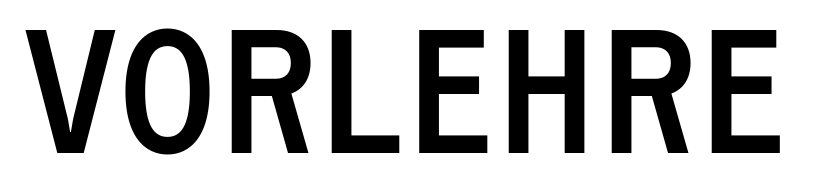
Looking for the fonts used for the Black Mountain College
Not finding a match. 'VORLEHRE' is kind of similar to System85:
But nothing for 'BLACK MOUNTAIN'. Almost looks like lettering. They both do to be honest. This is what I cleaned it up to be.